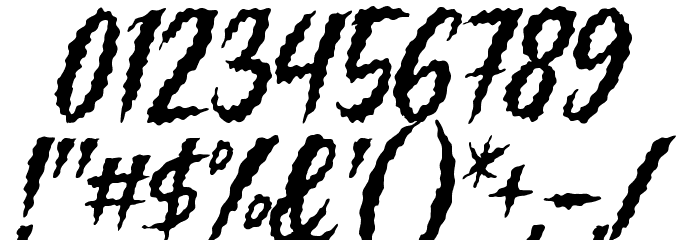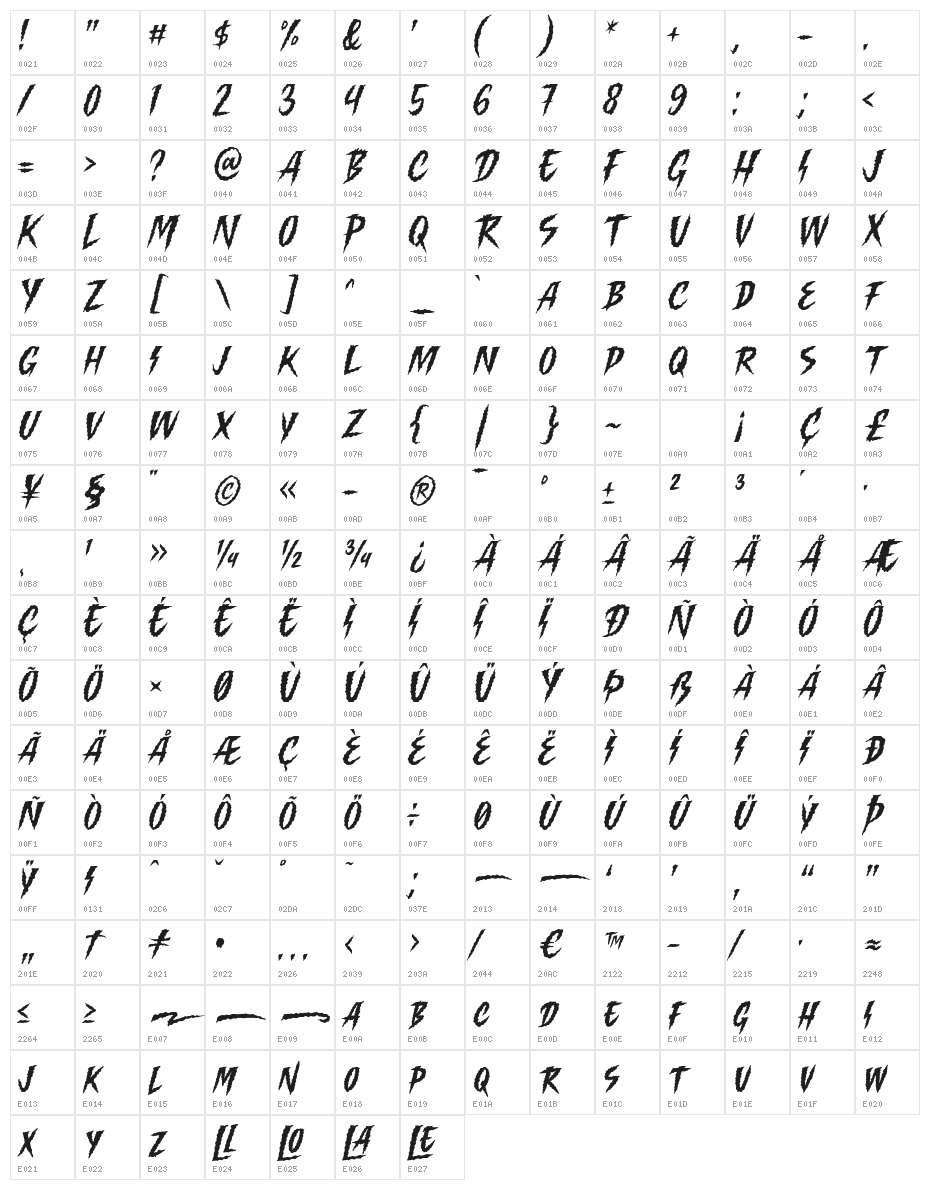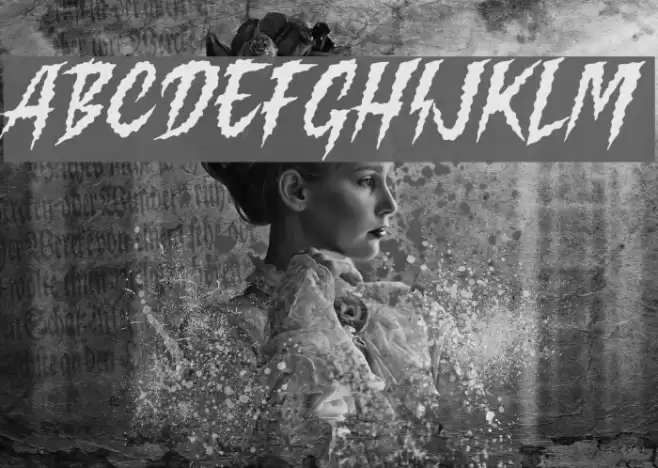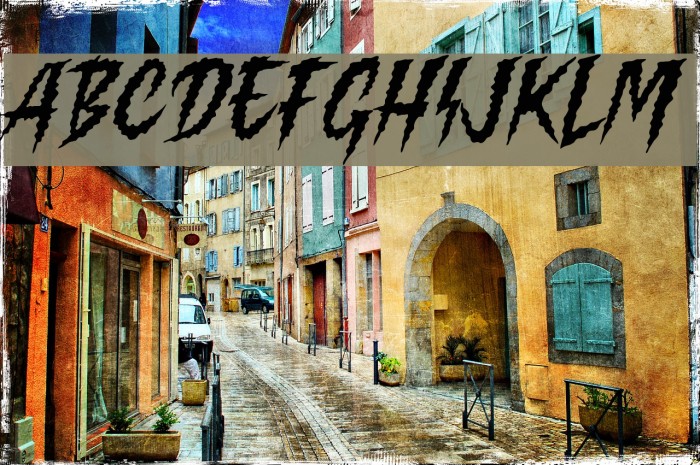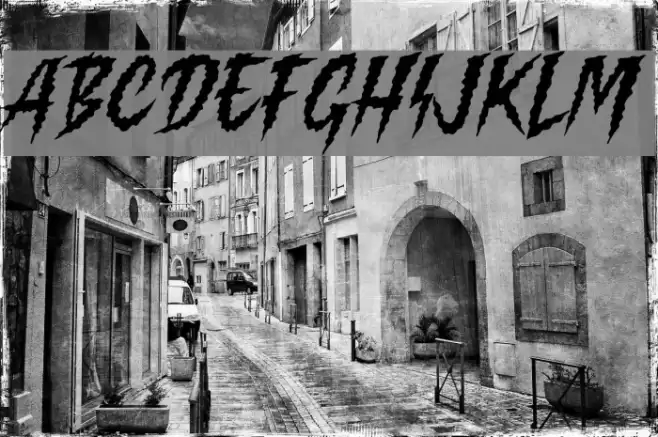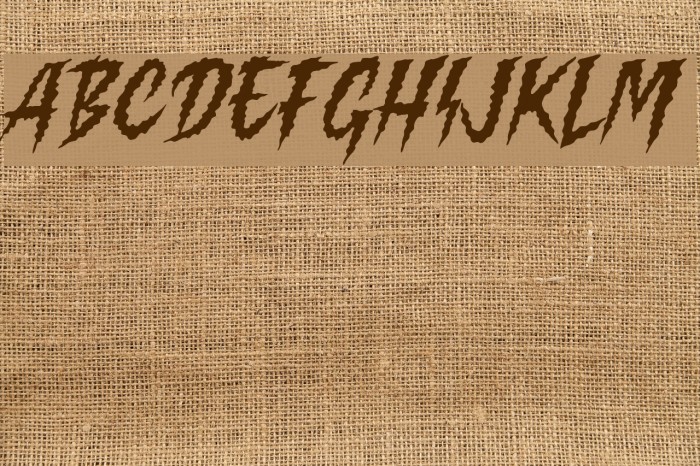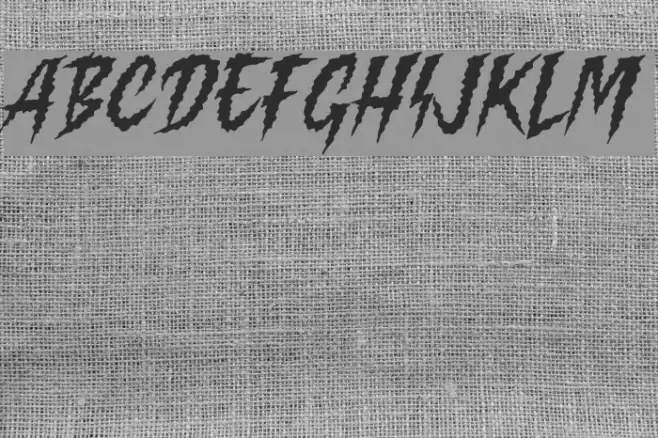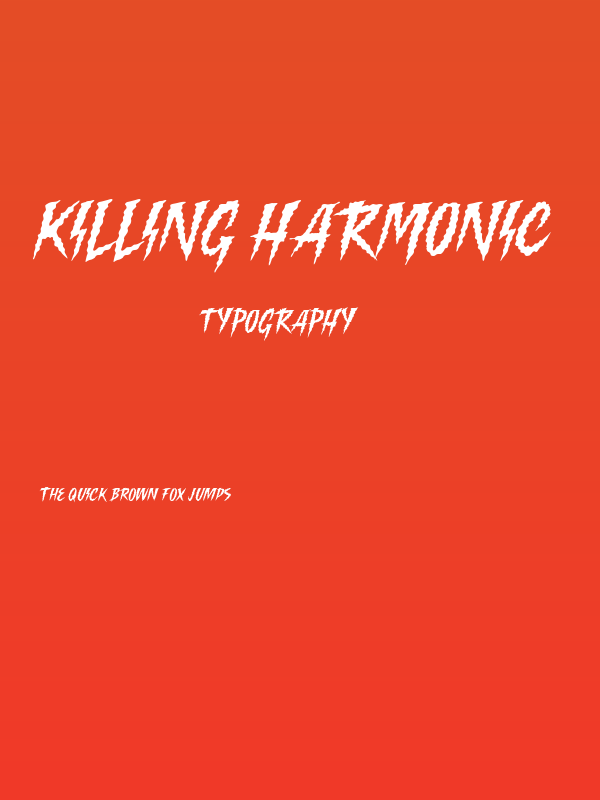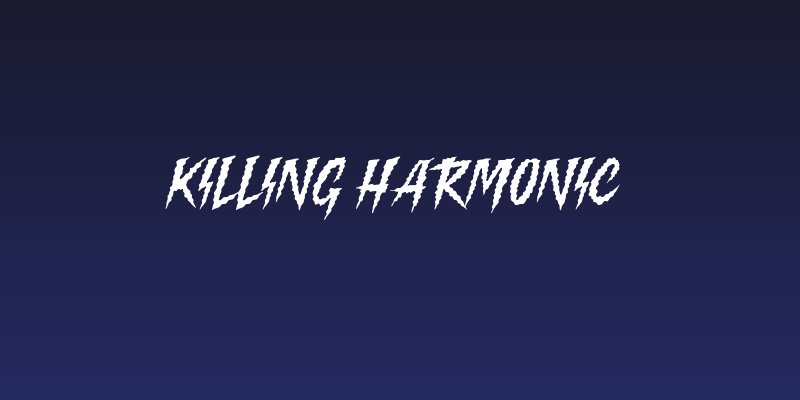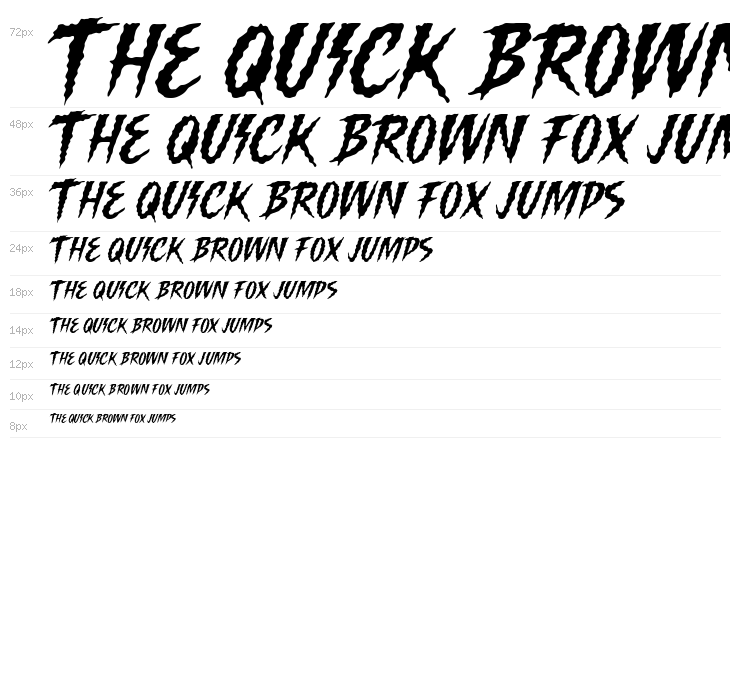
Killing Harmonic Font
Killing Harmonic Description
This font features a bold and aggressive style with jagged, sharp edges that give it a dynamic and intense appearance. The letters are designed with a rough, distressed texture, creating a sense of movement and energy. The uppercase and lowercase characters maintain a consistent style, with exaggerated angles and a slightly slanted orientation, enhancing the font's edgy and rebellious look. The numerals and special characters follow the same design principles, ensuring a cohesive visual impact across all elements. This font is ideal for projects that require a bold statement or a dramatic flair.
| Overall Style | Modern, Edgy |
| Proposed Projects | Perfect for horror-themed designs, music album covers, posters, and any project needing a bold, edgy statement. |